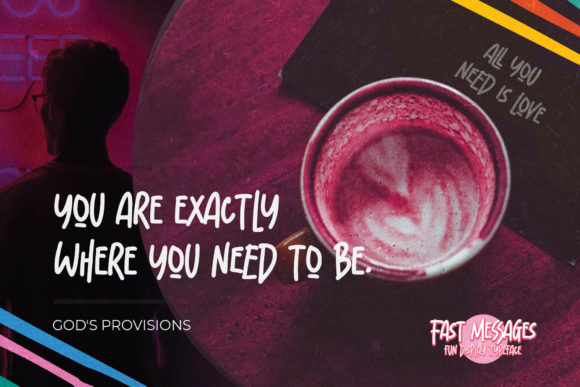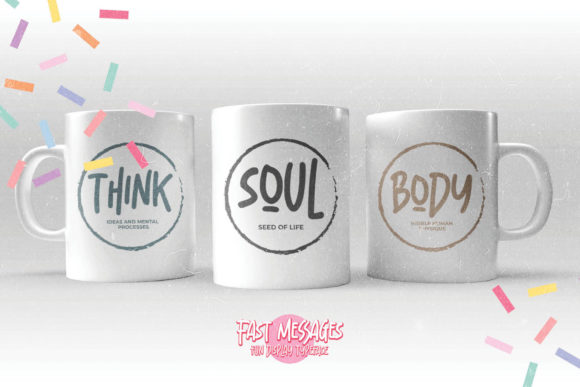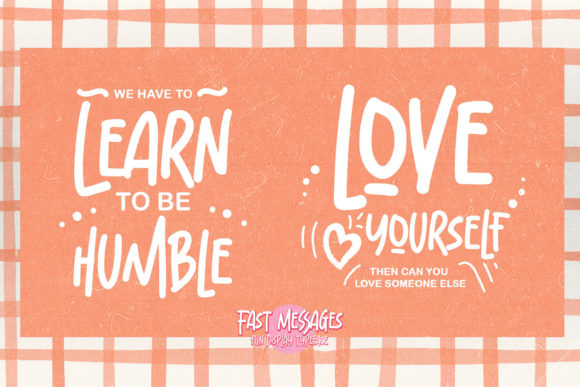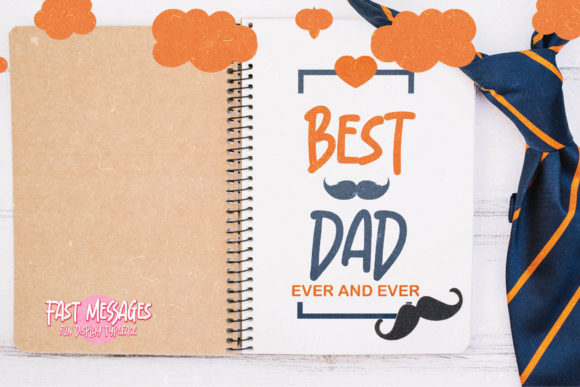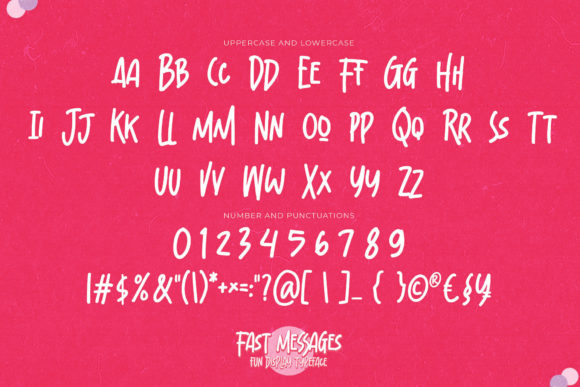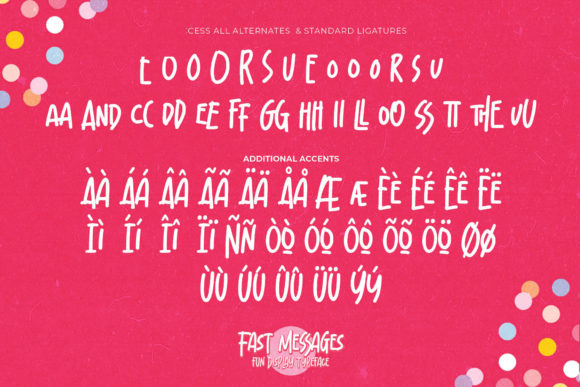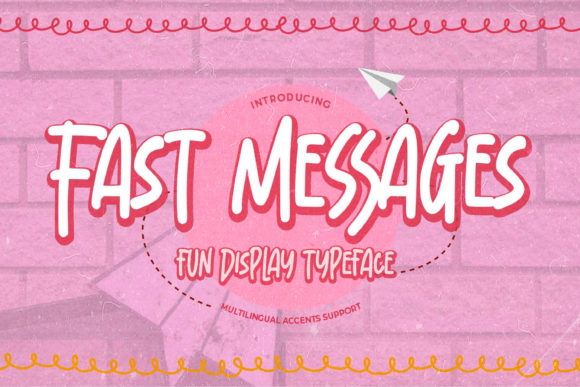
Introducing Fast Messages Font: Elevate Your Designs with a Unique and Fun Display Font
Are you tired of using the same old fonts in your designs? Do you want to add a touch of personality and whimsy to your creations? Look no further than Fast Messages Font, a unique and fun display font that’s perfect for informal projects, happy moment decorations, and any other design that requires a happy mood.
What is Fast Messages Font?
Fast Messages Font is a specially designed font that exudes happiness and playfulness. Its unique and fun design makes it perfect for a wide range of projects, from DIY crafts and party decorations to social media graphics and blog posts. With Fast Messages Font, you can add a personal touch to your designs and make them stand out from the crowd.
Key Features of Fast Messages Font
- Unique and Fun Design: Fast Messages Font has a one-of-a-kind design that’s sure to grab attention and add a smile to your audience’s faces.
- Perfect for Informal Projects: Whether you’re working on a DIY craft, party decoration, or social media graphic, Fast Messages Font is the perfect choice.
- Easy to Read: Despite its playful design, Fast Messages Font is easy to read and understand, making it perfect for use in a variety of contexts.
- Versatile: Fast Messages Font can be used in a wide range of projects, from digital designs to print materials.
How to Use Fast Messages Font in Your Designs
Using Fast Messages Font in your designs is easy. Here are a few tips to get you started:
- Pair it with Other Fonts: Fast Messages Font pairs well with a variety of other fonts, so feel free to get creative and experiment with different combinations.
- Use it for Headings and Titles: Fast Messages Font is perfect for use in headings and titles, where its playful design can really shine.
- Add it to Your Digital Designs: Fast Messages Font can be used in a wide range of digital designs, from social media graphics to blog posts and more.
- Use it for DIY Crafts and Party Decorations: Fast Messages Font is also perfect for use in DIY crafts and party decorations, where its playful design can add a personal touch.
Benefits of Using Fast Messages Font
There are many benefits to using Fast Messages Font in your designs. Here are just a few:
- Adds Personality to Your Designs: Fast Messages Font can help you add a personal touch to your designs and make them stand out from the crowd.
- Creates a Happy Mood: The playful design of Fast Messages Font is sure to create a happy mood and put a smile on your audience’s faces.
- Easy to Use: Fast Messages Font is easy to use and can be incorporated into a wide range of designs.
- Versatile: Fast Messages Font can be used in a wide range of projects, from digital designs to print materials.
If you’re looking for a unique and fun display font to add a personal touch to your designs, look no further than Fast Messages Font. With its playful design and versatile uses, Fast Messages Font is the perfect choice for informal projects, happy moment decorations, and any other design that requires a happy mood. So why wait? Add Fast Messages Font to your creations today and take your designs to the next level!
Whether you’re a designer, crafter, or DIY enthusiast, Fast Messages Font is sure to become a favorite in your collection. Its unique and fun design makes it perfect for a wide range of projects, and its ease of use makes it a joy to work with. So go ahead, get creative, and see what amazing designs you can create with Fast Messages Font!